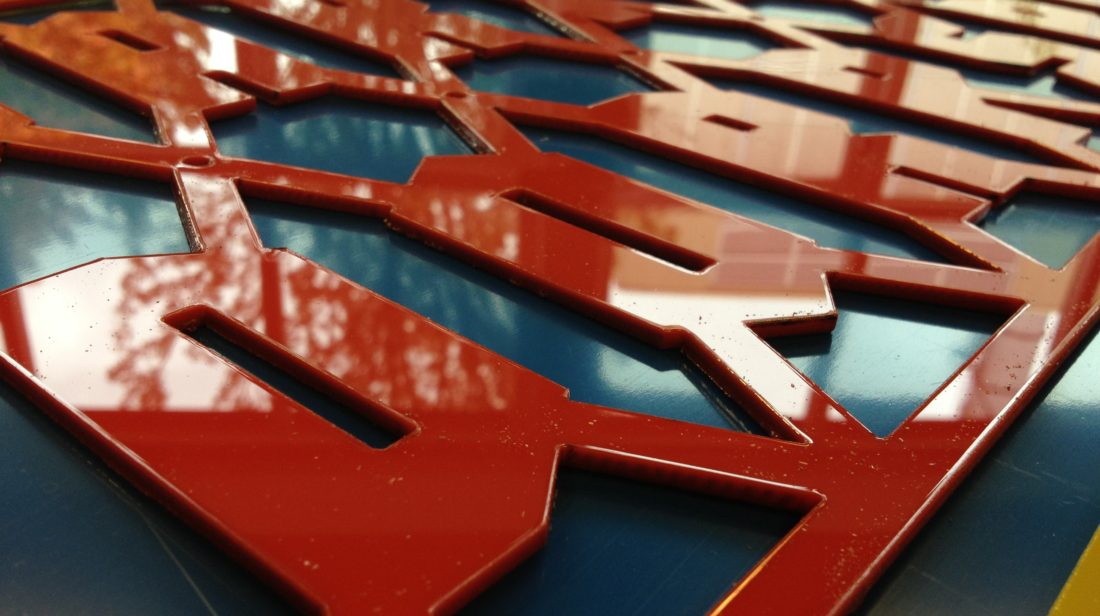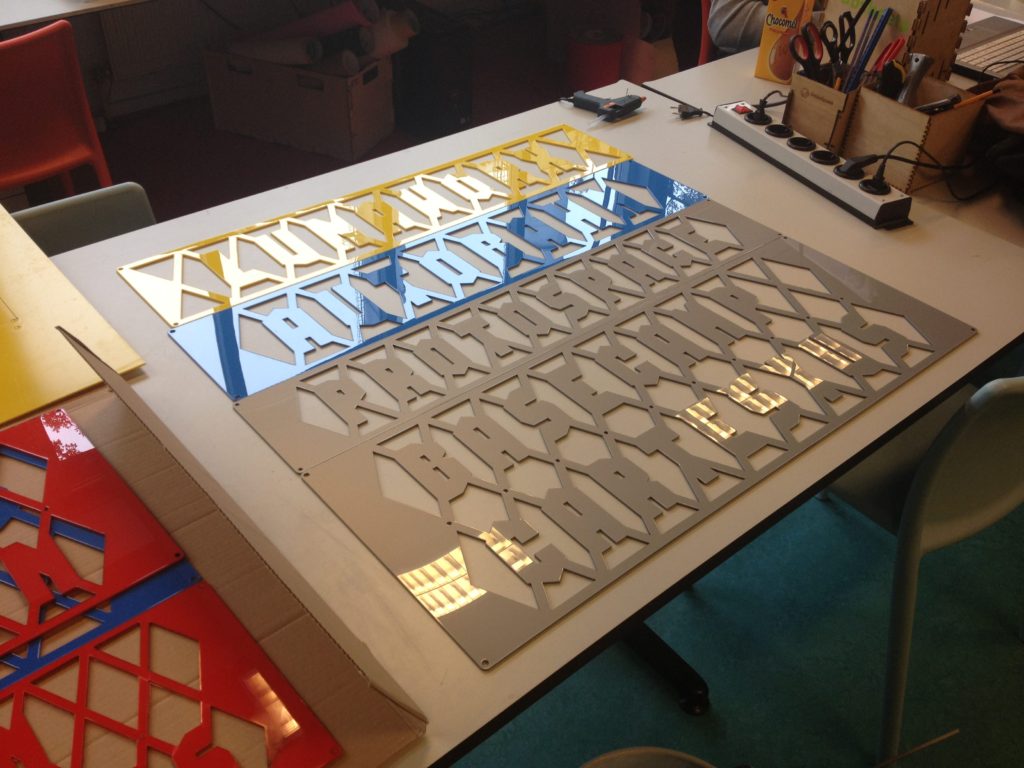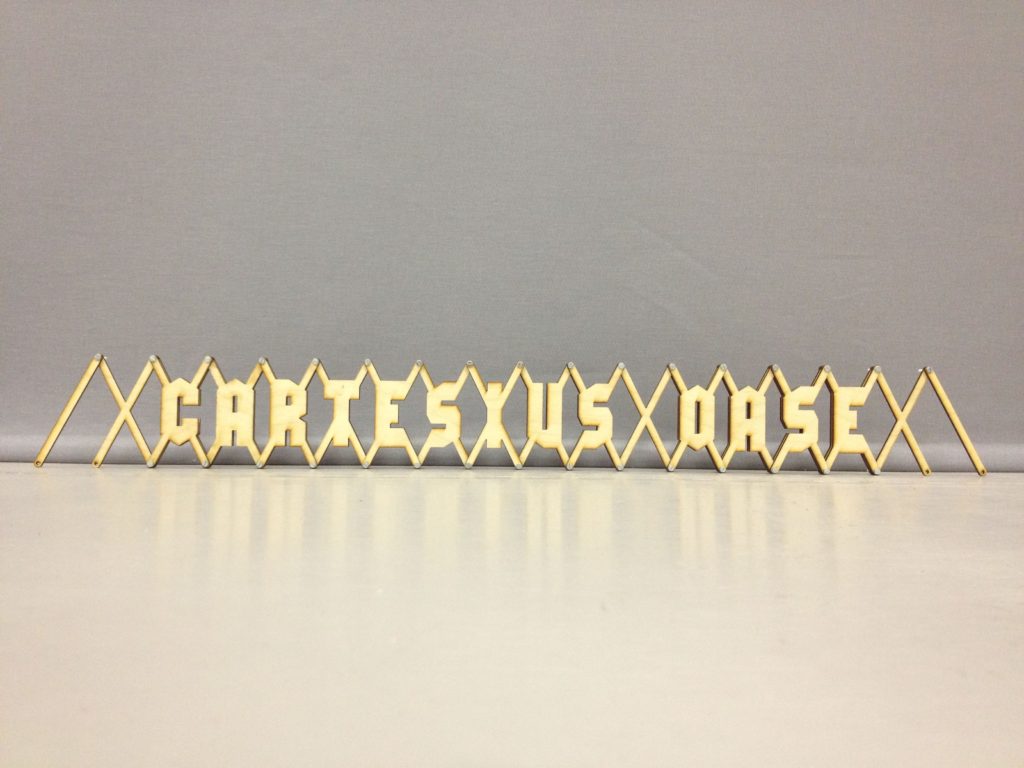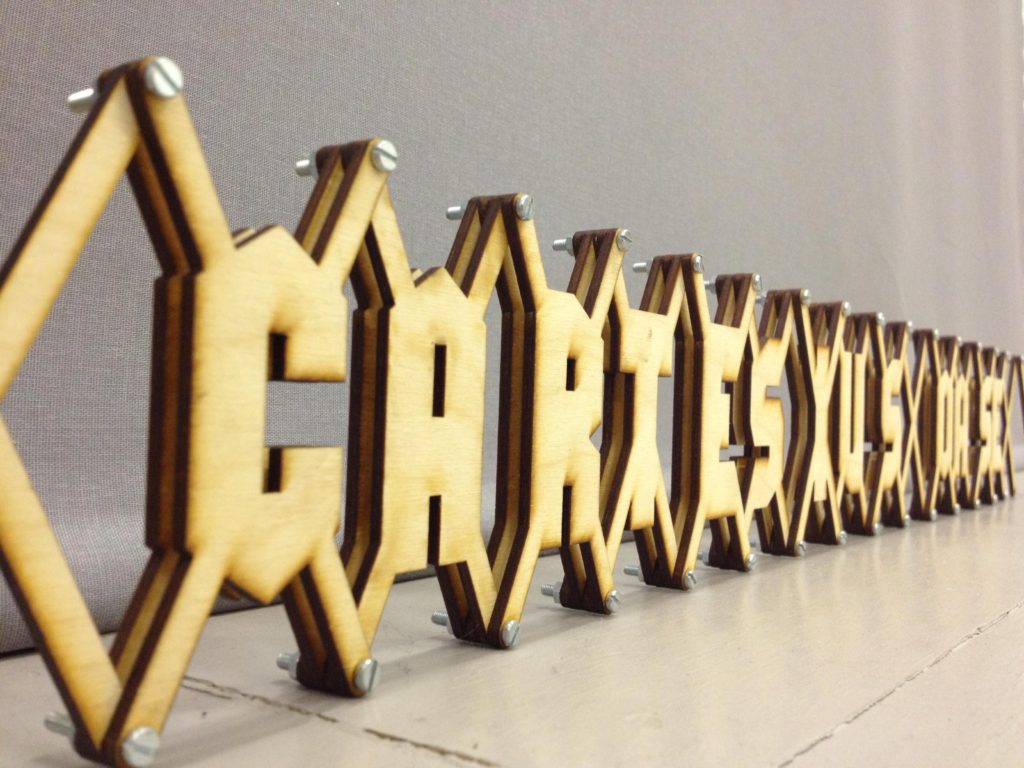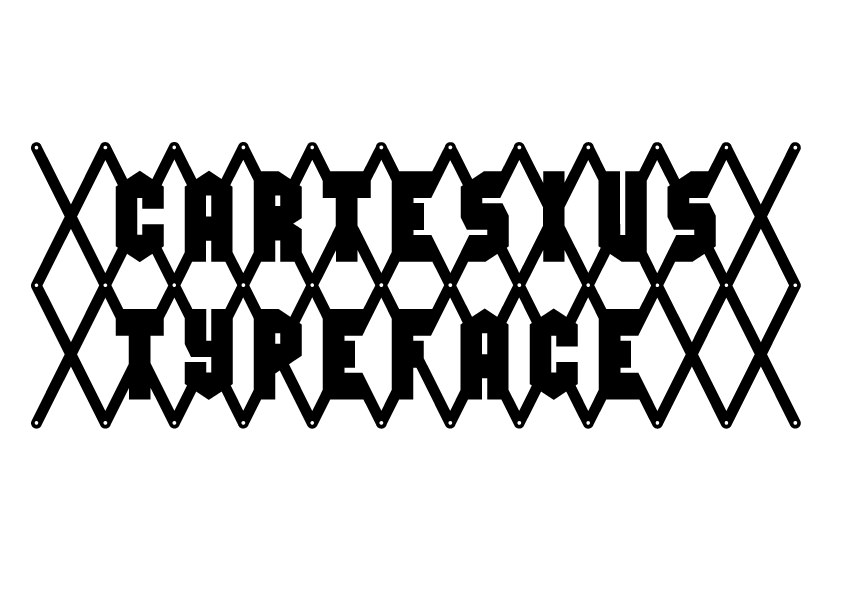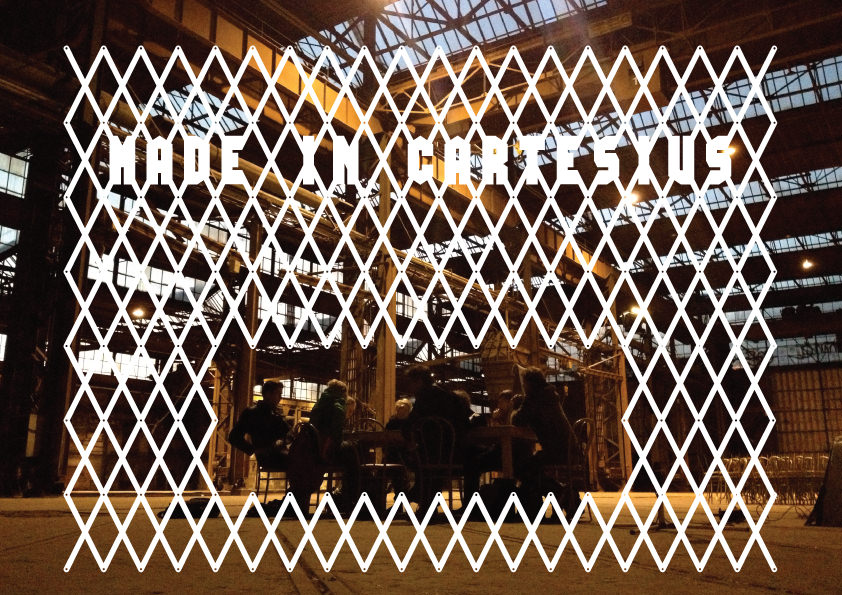
The city of Utrecht has grown to twice its size in recent years, particularly with the advent of the new Vinex-area Leidsche Rijn (90.000 inhabitants). Due to these urban changes, the geographic center has moved from the old city center to a derelict industrial area, named Cartesius. In 2008 Autobahn conceived a plan to transform this former industrial area into a Cultural Olympic Village where culture, creativity and knowledge can thrive. The name of this village is Basecamp Cartesius.
In the last two years the area is completely transformed. A lot of initiators of very diverse projects, entrepeneurs and artists joined us to realise the concept of Basecamp Cartesius. Now the area is full of creativity and it is to become a wide spread example of co-creation and innovations. To create a fitting identity for Basecamp Cartesius and a tool for all the people who are working in this area, we designed a typeface that preserves and recalls the rich industrial history of the Cartesius area: the long gone time of rugged steel workers and craftsmen who dominated the area for decades. The typeface is free to use for people with initiative for the area or for people who want to communicate about Cartesius. By now the typeface has become a ‘Made in Cartesius’ quality mark that people recognise.